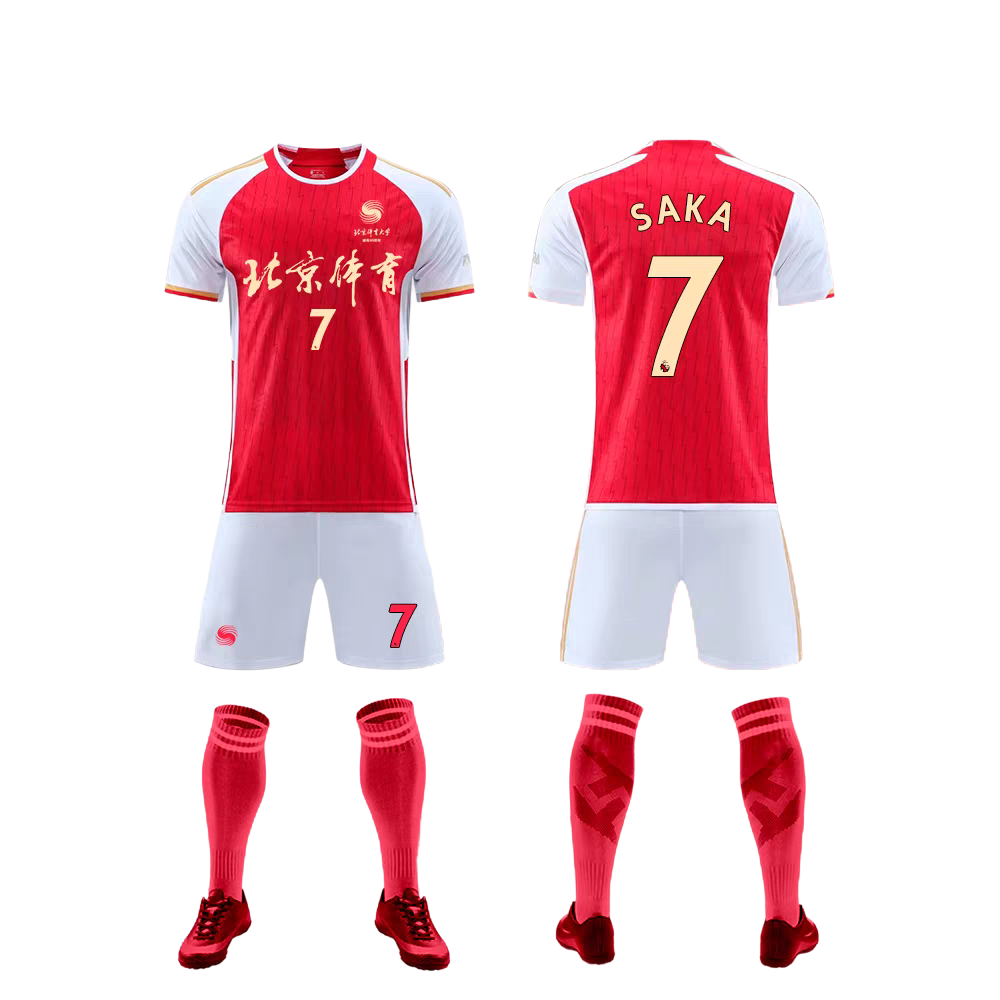
Optimizing Sports Jersey Fonts: Using Canva, IT, and Q Techniques for Design Excellence
The jersey font design, as an critical component of the sports brand image, no longer handiest incorporates the challenge of conveying the group spirit and way of life but also visually impacts the first affect of purchasers. In this text, we will delve into a way to choose the proper sports activities jersey fonts, examine the application of the Canva platform in jersey font design, and exhibit the allure of expert jersey font layout via real case studies.
The importance of jersey font design
inside the realm of sports activities, jerseys aren’t only the level wherein athletes show off their abilities, however additionally they serve as companies of group subculture, logo image, and lovers’ emotional attachment. The design of the jersey font, as an essential factor of its visible factors, can not be neglected.
The jersey font directly influences the conveyance of information. whether or not it is the team call, sponsor brand, or player names, the choice of font influences the readability and clarity of these details. appropriate font choice guarantees that these pieces of facts continue to be legible from a distance and at exclusive angles, that’s critical for the viewing revel in of the suit.
The style of the font is carefully linked to the group’s photo. The font layout on a group’s jersey desires to suit its history, tradition, and sporting spirit. as an instance, classical fonts is probably more fitting for classic groups with a experience of stability and solemnity, at the same time as modern-day and minimalist fonts can be higher applicable for younger, revolutionary teams. the selection of font fashion without delay displays the crew’s values and emblem positioning.
The design of the jersey font impacts the consistency of the logo’s visible identity machine (VI). A a hit brand reinforces its photo through a sequence of visual elements, with the jersey font being considered one of them. Consistency in font layout is crucial for boosting brand impact. Inconsistent font design might also confuse consumers and reduce emblem reputation.
Font design additionally has an immediate effect on the overall aesthetics of the jersey. As one of the visual factors, the font, at the side of the jersey’s color, sample, and reduce, contributes to the visual stability. An aesthetically attractive and harmonious font layout can enhance the general texture of the jersey, making it more appealing.
The design of the jersey font can also mirror advancements in technology and craftsmanship. With the continuous development of virtual printing technology, jersey font design is no longer restricted to standard, rigid fonts, however can contain more innovative factors and personalised designs. This not handiest showcases the designer’s talents but additionally gives lovers with greater selections.
The importance of jersey font layout lies in its direct dating to the efficiency of information conveyance, the shaping of team snap shots, the transmission of brand values, and the overall splendor of the jersey. consequently, at some stage in the design system, it’s miles crucial to recollect different factors and pick out the most suitable font to reap the exceptional visible effect.
Please choose an appropriate sports jersey font.
In sports activities jersey design, the selection of font is vital. It now not best relates to the general visual effect of the jersey but also includes the team culture and brand photo. here are a few key factors to help designers select the right jersey font:
emblem persona and Jersey style Matching: The jersey font should suit the group’s positioning and fashion. as an instance, conventional and solid groups may be greater suitable for traditional fonts, while young and vibrant groups might opt for more present day and elegant fonts.
Legibility of the Font: no matter whether or not the jersey is on the sector or within the stands, the font desires to ensure readability and legibility. Too complicated fonts may purpose difficulties in popularity for the duration of the sport, affecting the viewing revel in.
assessment of the Font coloration with the Jersey color: The colour of the font should shape a clear evaluation with the jersey coloration, making it clean to see the crew call and variety from a distance or even as in movement. avoid using hues which can be too near each other to save you visible confusion.
Font size and Jersey length: The font length have to be coordinated with the general length of the jersey. Too massive fonts may additionally look awkward, even as too small fonts won’t be sufficiently displayed at the jersey.
five. layout of Numbers and team Names: On jerseys, numbers are commonly more outstanding than team names. consequently, the font for the numbers may be slightly large, at the same time as the font for the team call may be tremendously smaller but nonetheless virtually legible.
these case studies display that expert jersey typography layout isn’t always just about choosing fonts; it includes more than one factors along with emblem picture, cultural connotation, emotional expression, and fashion developments. Designers want to don’t forget these elements carefully to create typography that is each in line with the spirit of sports and visually appealing.